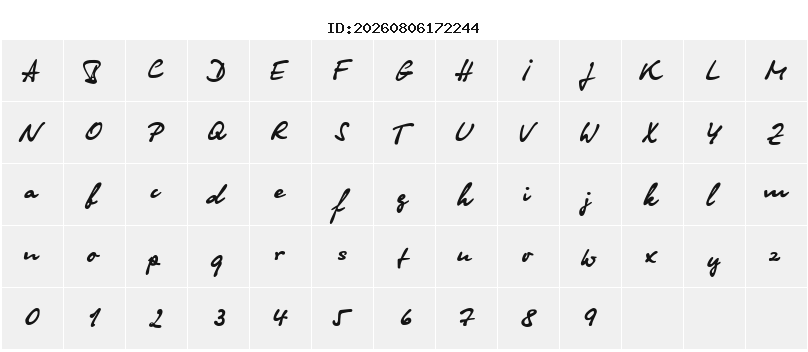
• Font Name: OlgaC
• Manufacturer: ParaType, Inc
• Description: Designed by ParaGraph in 1993 by Tagir Safayev. Based on the informal handwriting. For use in advertising and display typography.